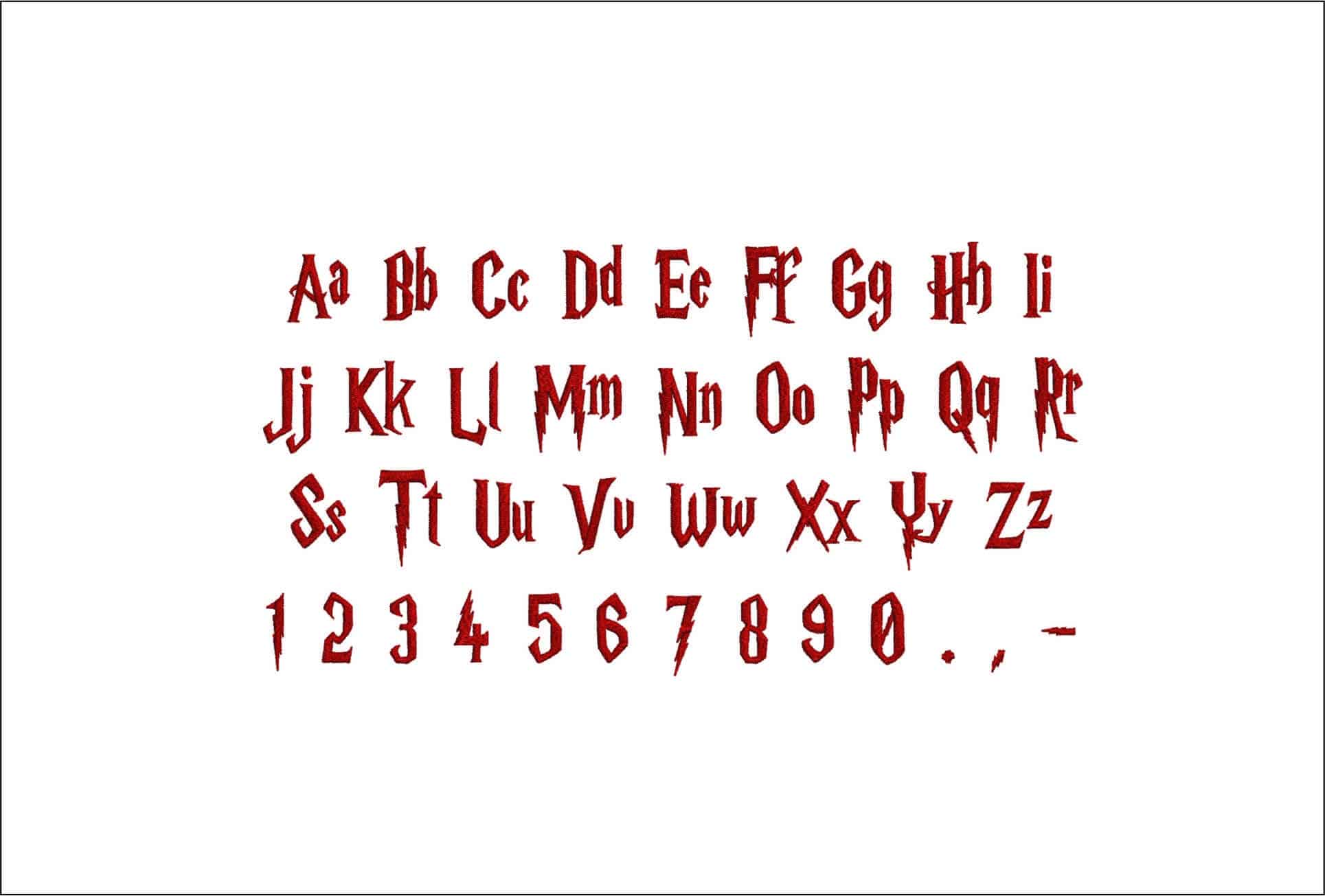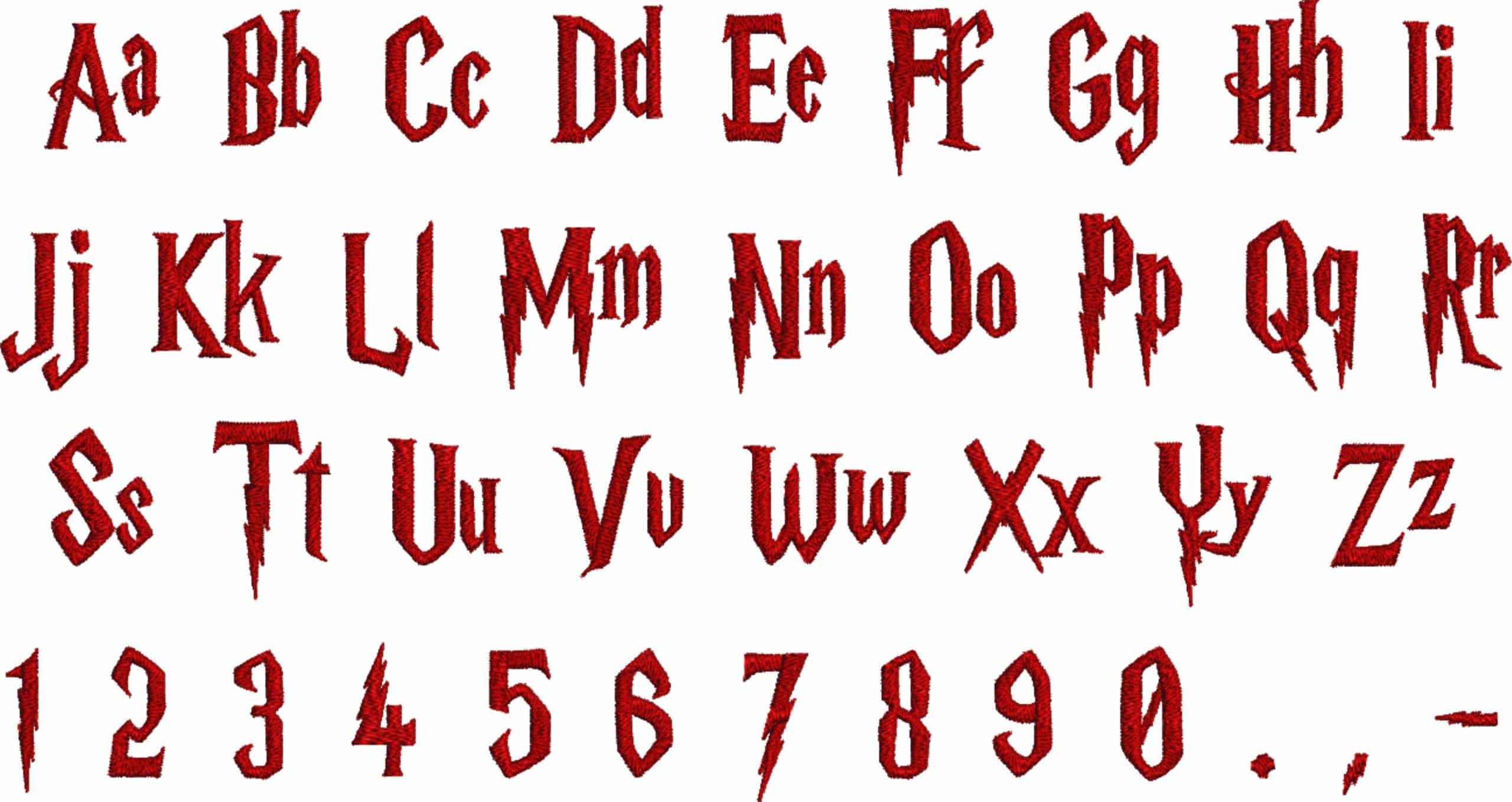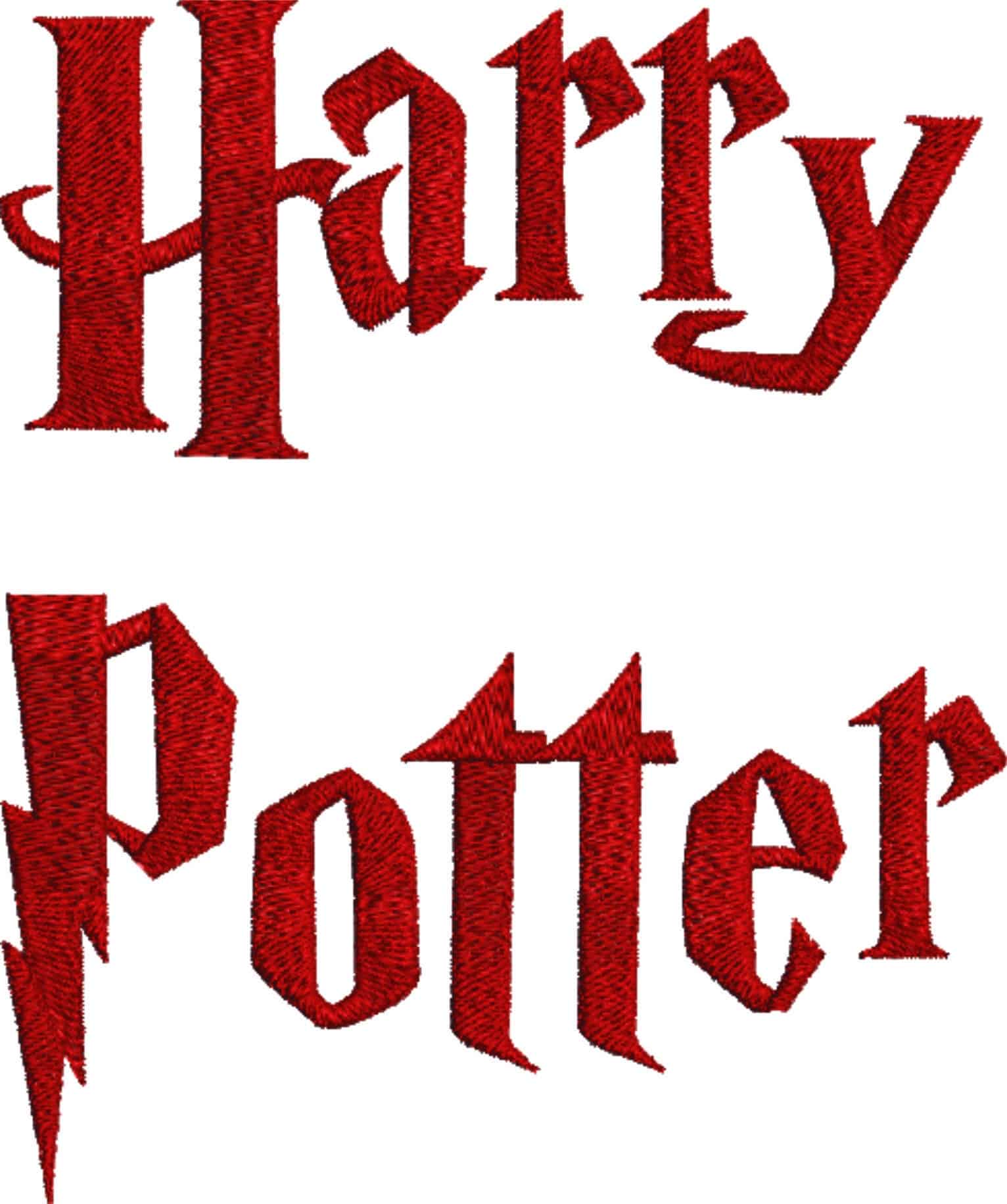
A gothic wizard-style embroidery font with sharp serif letters and a lightning-strike P for names that need instant storybook drama.
Cast a wizarding spell across names and initials with this Harry Potter embroidery font set, drawn in a gothic serif style with sharp, pointed letterforms. The standout detail is the lightning-bolt treatment on the capital P, which gives the alphabet the same dramatic, instantly recognisable feel as the sample wording. It suits fans who want personalisation that feels darker, older and more theatrical than a standard monogram.
This style looks especially strong on black hoodies, burgundy sweatshirts, denim jackets, book sleeves and canvas tote bags, where the angular shapes can really stand out. The red sample stitching shows how well the letterforms carry bold contrast, especially on darker fabrics. Use it for first names, surnames or short phrases when you want the text itself to be the feature rather than a background motif.